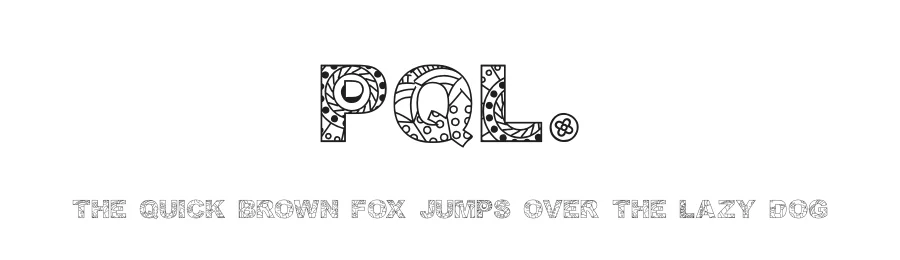
About Doodala Biggie Font
Introducing Doodala Biggie! A super fun, hand-drawn Mandala font. Great for creating intricate floral monogram designs quickly and easily.
Also fun to print out and color!
Doodala Biggie Font